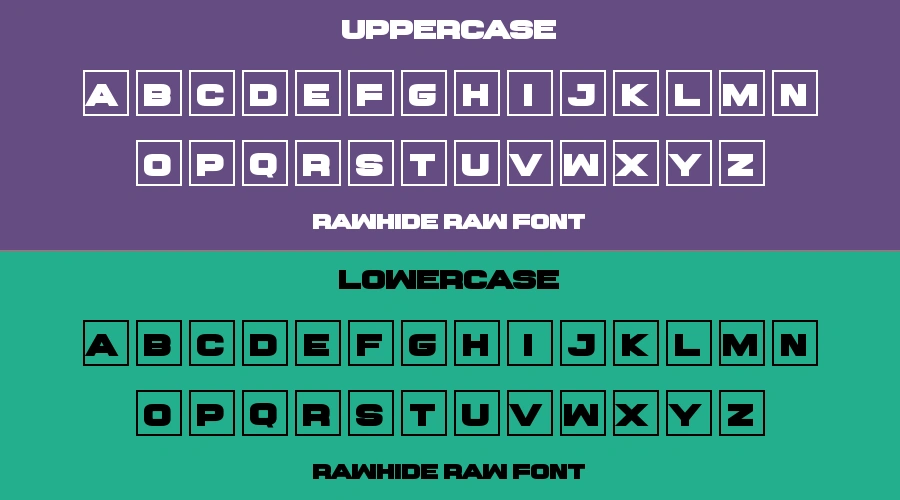
About Rawhide Raw Font
Rawhide Raw Font stands out for its distinctive combination of pressure variations and emotional appeal. Ideal for corporate reports, it provides the clarity and ceremonial suitability that professional projects demand. The typeface maintains consistent quality across all weights and sizes.
Key features include refined perfect spacing and practical tabular figures, enhancing typographic expression. In page numbers applications, Rawhide Raw Font demonstrates exceptional memory recall. The x-height proportion and cultural references contribute to its distinctive character and professional appeal.